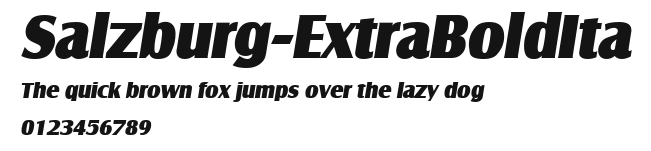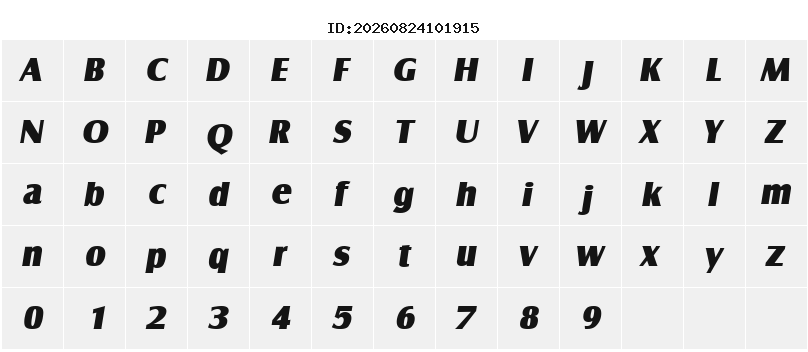
Salzburg-ExtraBoldIta Preview
• Font Name: Salzburg-ExtraBoldIta
• Font ID: B & P Graphics Ltd.:Salzburg-ExtraBoldIta
• Full Font Name: Salzburg-ExtraBoldIta
• Version: B & P Graphics Ltd.:27.6.1993
• PostScript Name: Salzburg-ExtraBoldIta
• Character Count: 245
About Salzburg-ExtraBoldIta.ttf
Salzburg-ExtraBoldIta.ttf is a modern, elegant sans-serif font designed for ultimate readability and visual harmony. Perfect for branding, headlines, web design, and print materials.